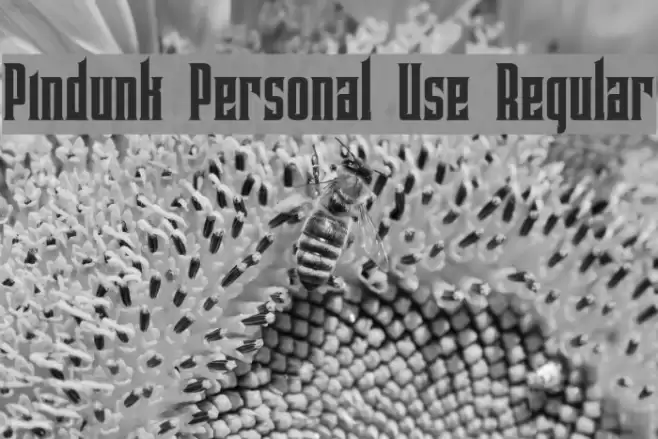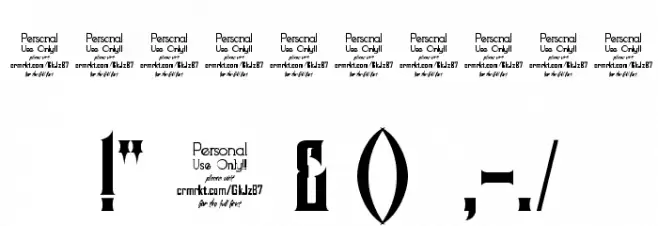
Pindunk Personal Use Regular Font
Pindunk Personal Use Regular Description
This font features a bold and striking design with a strong presence. The characters are crafted with sharp, angular edges and a gothic-inspired style, giving it a dramatic and intense appearance. The uppercase and lowercase letters maintain a consistent height, creating a uniform look across the text. The numerals and special characters follow the same design principles, ensuring cohesion throughout. This font is ideal for projects that require a bold statement, such as posters, album covers, or branding materials. Its unique style makes it stand out, capturing attention with its distinctive flair.
A bold, gothic-inspired font with sharp, angular edges from Uncategorized fonts.
- Proposed Projects: Ideal for posters, album covers, branding materials, and any project needing a bold statement.